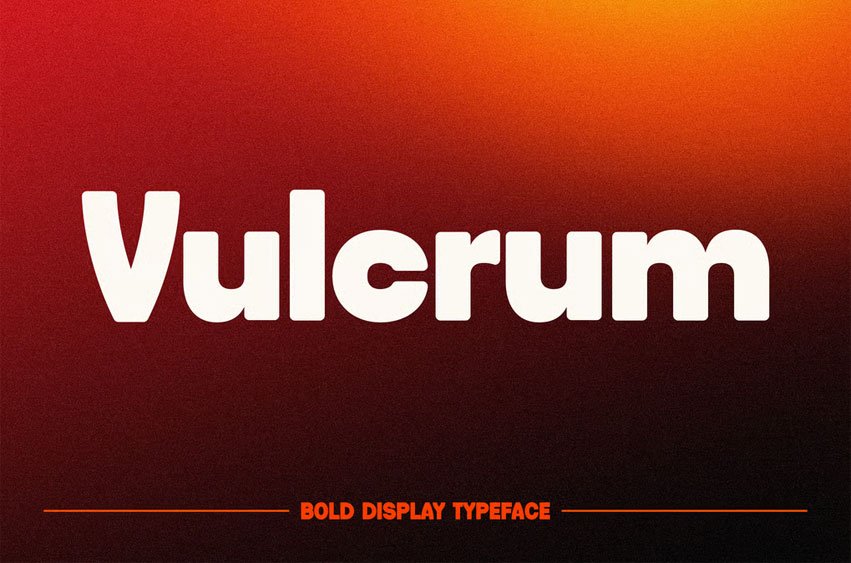
Vulcrum Font is a bold geometric display typeface crafted for designers who demand clarity, power, and presence. Its distinct curves, tight spacing, and sharp proportions give it a modernist tone inspired by architectural balance and industrial design systems. Each letterform stands firm—structured, confident, and unapologetically strong—perfect for modern branding, editorial layouts, or tech-forward campaigns.
This typeface captures the essence of Bauhaus influence and digital-era clarity, making it both timeless and striking in contemporary applications.
Engineered for brand identity, posters, packaging, web headers, and editorial titles, Vulcrum gives your message instant visual authority. Its bold geometry and clean contrast make it ideal for companies, agencies, or creatives who want to communicate confidence, innovation, and modern simplicity. Whether it’s a fashion label, architecture studio, or digital brand, Vulcrum brings a structured visual voice to every word.
- Structural Precision Built with consistent geometry, clean terminals, and strong vertical proportions.
- Bold Character Perfect for modern titles, magazine spreads, branding, and digital campaigns.
- Timeless Versatility Balances retro modernism with a future-ready aesthetic, ideal for both print and screen.
- Smooth Usability Optimized kerning and letter rhythm for professional-grade layouts.